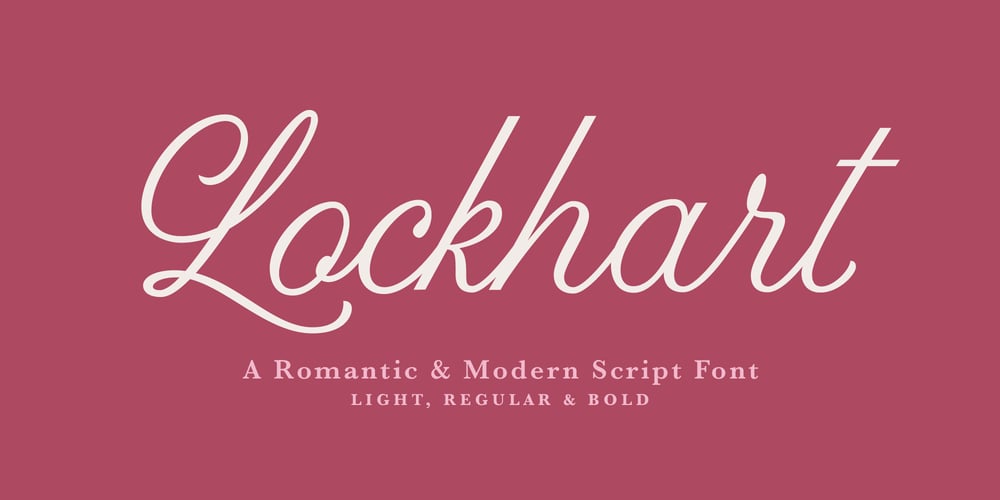
Lockhart Font Family was designed by Danielle Edwards and published by Danielle Eneh. Lockhart contains 3 styles and family package options. Lockhart is a romantic, modern script font family available in 3 weights- light, regular and bold.Lockhart is perfect for branding projects, logos, wedding designs, social media posts, advertisements, product packaging, product designs, labels, photography, and invitations.It includes custom swashes, opentype features and ligatures to make your projects more unique and customizable.Language Support: English. Danish, Finnish, French, German, Italian, Portuguese, Spanish, Swedish, welsh, Icelandic